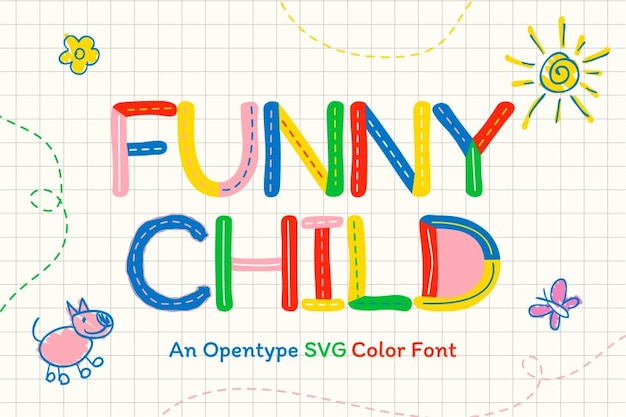
"Funny Child" font is a delightful homage to childhood innocence, with playful characters that dance across the page. Its inline design adds a touch of whimsy, reminiscent of doodles in a school notebook. Perfect for projects targeting kids or educational materials, it captures the essence of youthful curiosity and joy, making learning a fun-filled adventure.